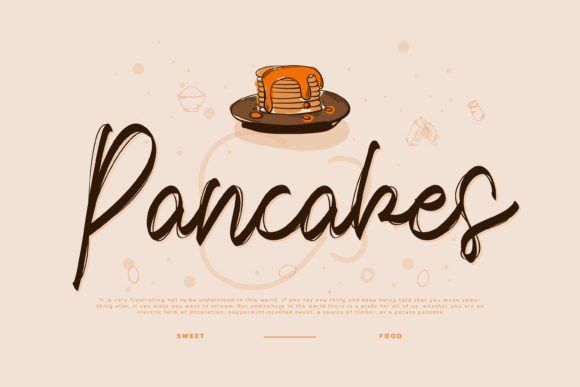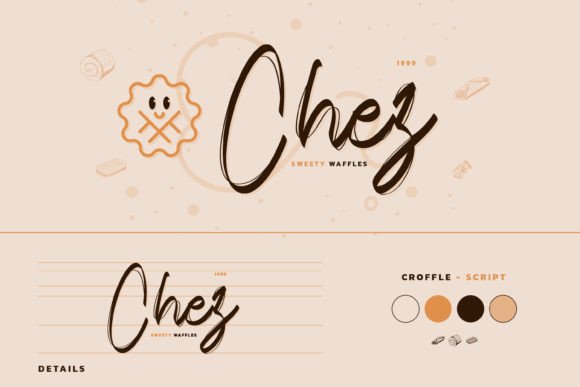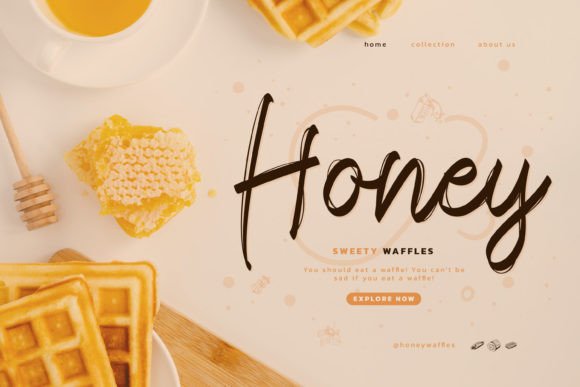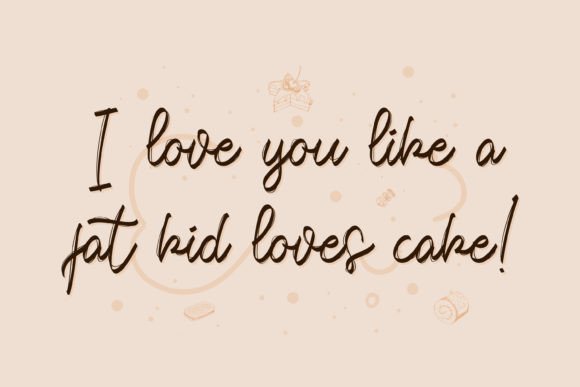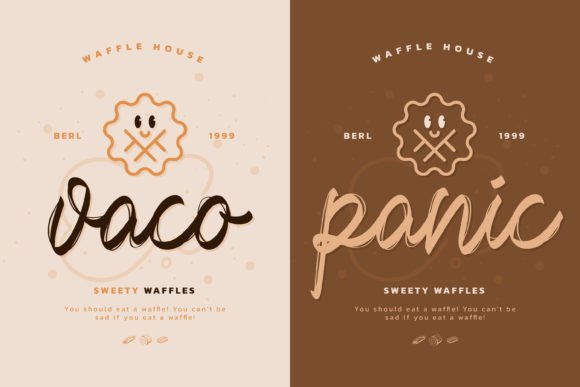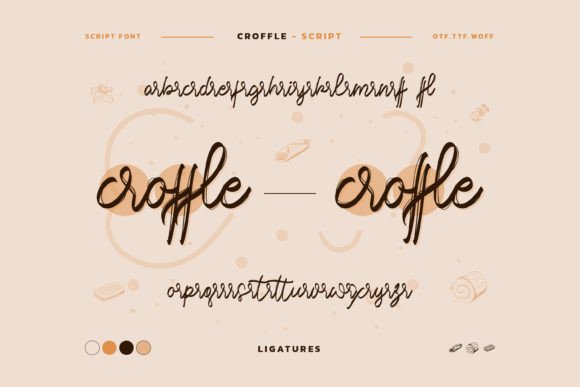
Croffle Font: The Ultimate Go-to for Creative Projects
Are you on the hunt for a font that adds a touch of casual charm to your creative projects? Look no further than Croffle Font! This cool and casual handwritten font has been making waves in the design community, and for good reason. Whether you’re a seasoned designer, a crafty DIY enthusiast, or simply someone who loves making greeting cards, Croffle Font is sure to become your new favorite go-to.
What is Croffle Font?
Croffle Font is a beautifully crafted handwritten font that exudes a sense of relaxed elegance. Its casual, laid-back vibe makes it perfect for a wide range of creative projects, from digital designs and presentations to crafts and handmade cards. The font’s unique character and charm are sure to add a personal touch to any project, making it stand out from the crowd.
Why Choose Croffle Font?
So, what sets Croffle Font apart from other fonts out there? Here are just a few reasons why designers and crafters are falling in love with this amazing font:
- Versatility: Croffle Font is incredibly versatile, making it suitable for a wide range of projects and applications. Whether you’re designing a logo, creating a social media graphic, or making a handmade card, this font is sure to shine.
- Ease of use: Croffle Font is incredibly easy to use, even for those who are new to design or crafting. Its clean and simple lines make it easy to read and work with, making it perfect for both digital and print projects.
- Unique character: Croffle Font has a unique character that sets it apart from other fonts. Its casual, handwritten feel adds a personal touch to any project, making it perfect for designers and crafters who want to add a bit of personality to their work.
How to Use Croffle Font
So, how can you use Croffle Font in your creative projects? Here are a few ideas to get you started:
- Crafts: Croffle Font is perfect for crafty projects like scrapbooking, card making, and journaling. Add a personal touch to your crafts with this beautiful handwritten font.
- Digital design: Croffle Font is also great for digital design projects like social media graphics, blog posts, and presentations. Its clean and simple lines make it easy to read on digital devices.
- Greeting cards: Croffle Font is perfect for making greeting cards for special occasions like birthdays, weddings, and holidays. Add a personal touch to your cards with this beautiful handwritten font.
Tips and Tricks for Working with Croffle Font
Here are a few tips and tricks for getting the most out of Croffle Font:
- Experiment with colors: Croffle Font looks great in a variety of colors, so don’t be afraid to experiment and find the perfect hue for your project.
- Mix and match: Croffle Font pairs well with other fonts, so try mixing and matching it with different fonts to create a unique look.
- Play with sizes: Croffle Font looks great in a variety of sizes, so experiment with different sizes to find the perfect fit for your project.
| Font Name | Croffle Font |
In conclusion, Croffle Font is a cool and casual handwritten font that is sure to become your go-to for creative projects. Its versatility, ease of use, and unique character make it perfect for designers, crafters, and anyone looking to add a personal touch to their work. Whether you’re working on a digital design project, making a handmade card, or crafting a beautiful journal page, Croffle Font is the perfect choice. So why wait? Give Croffle Font a try today and see the difference it can make in your creative projects!